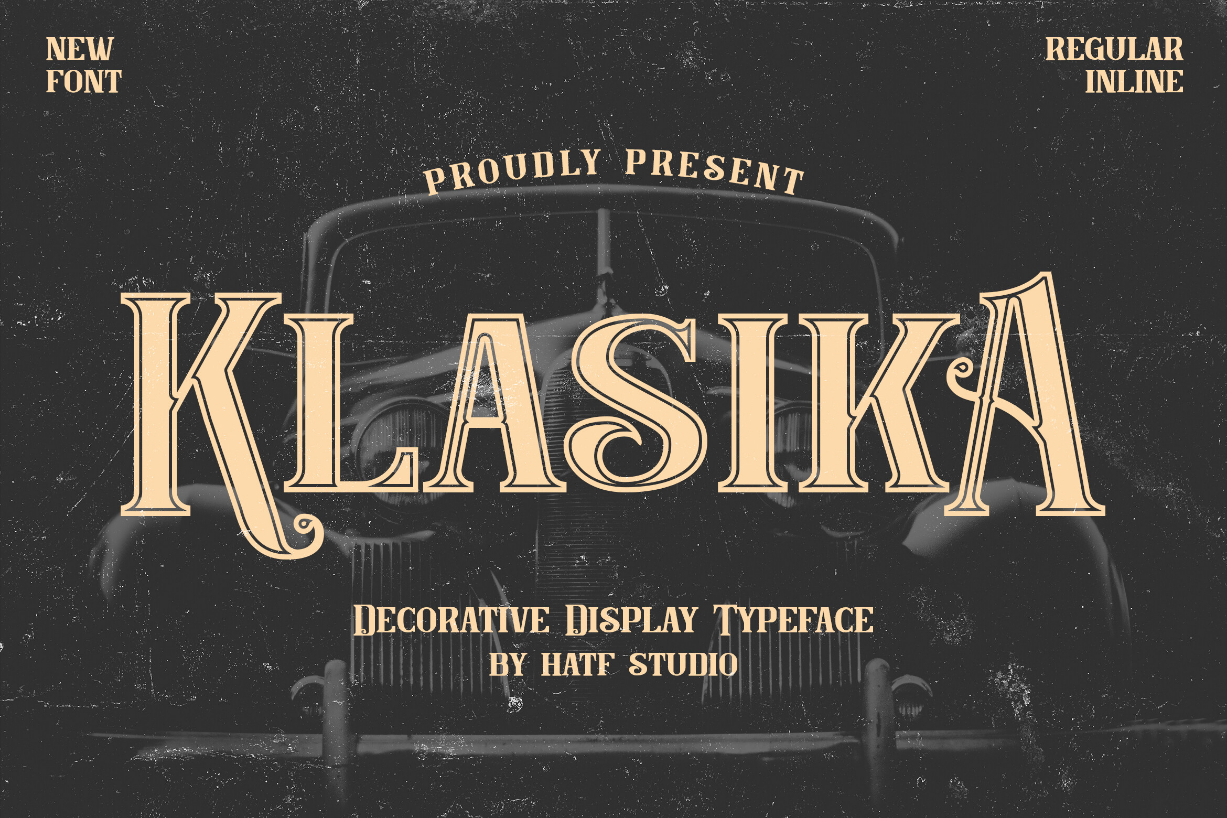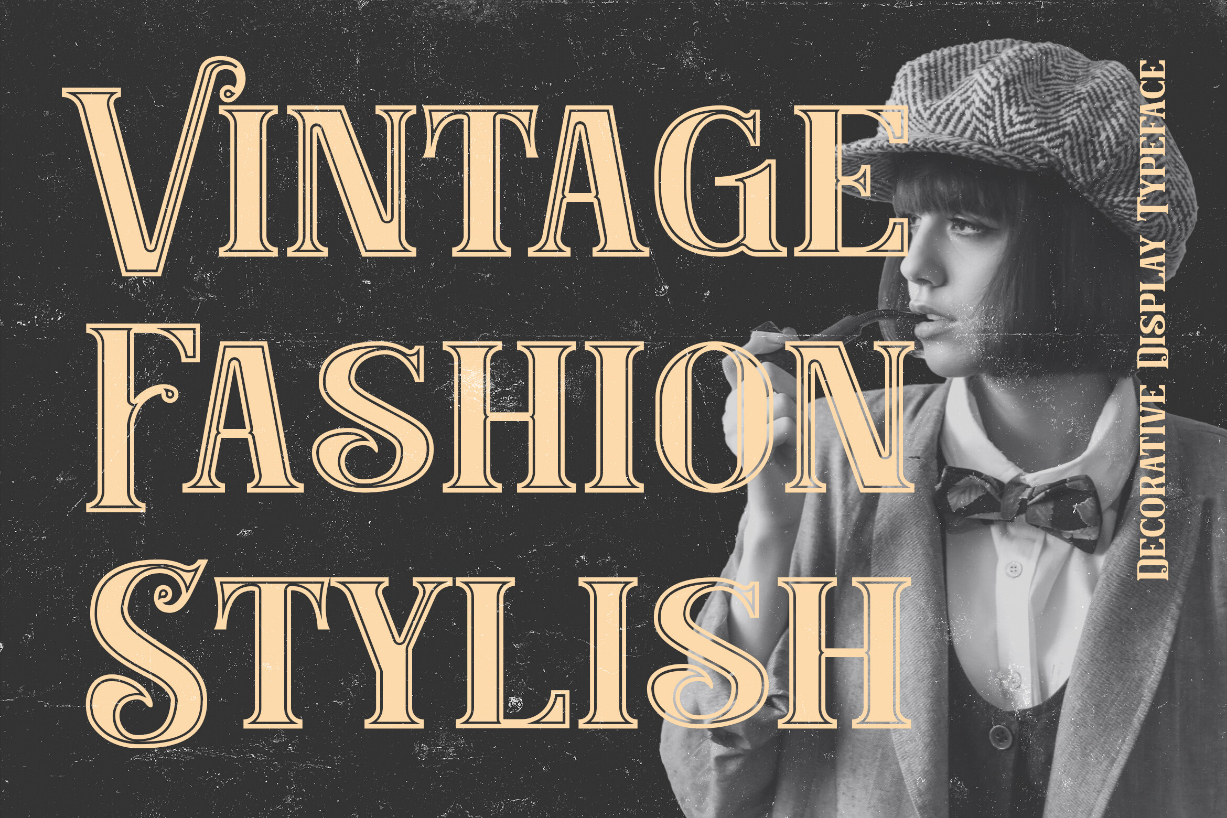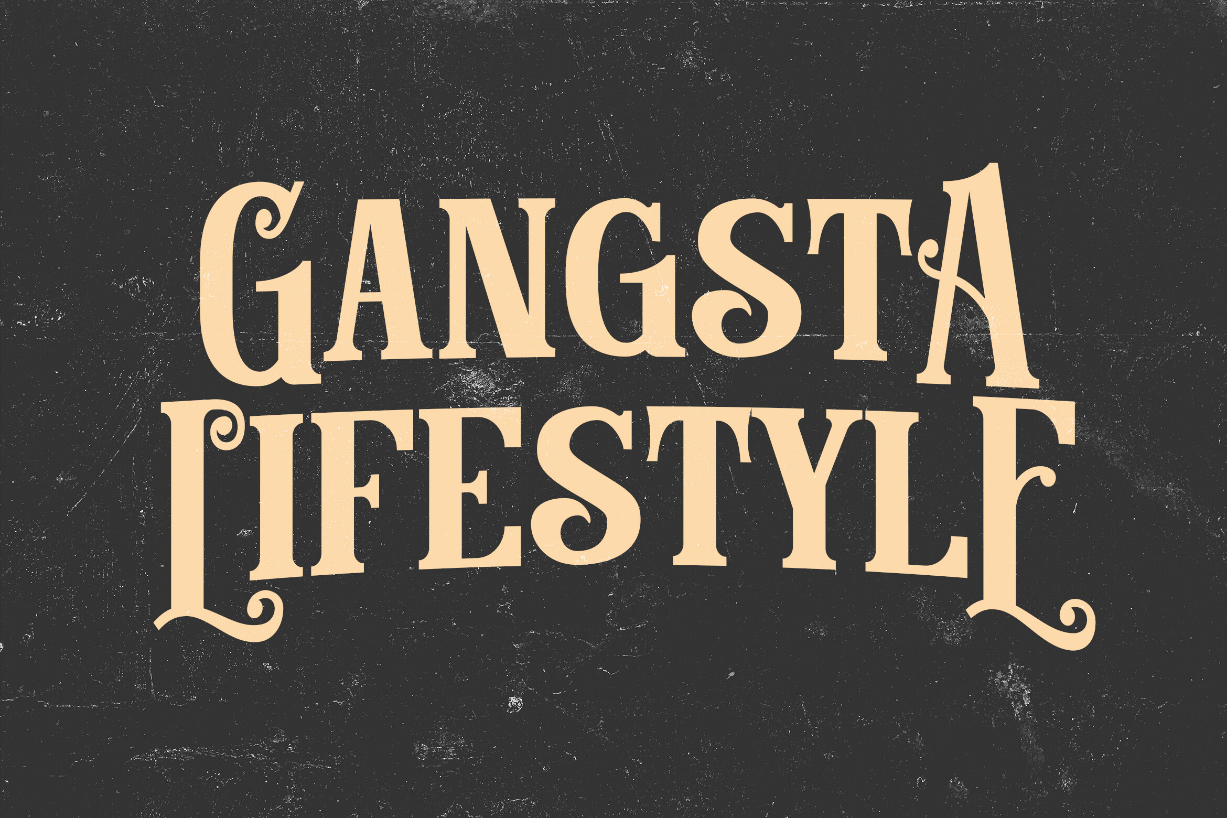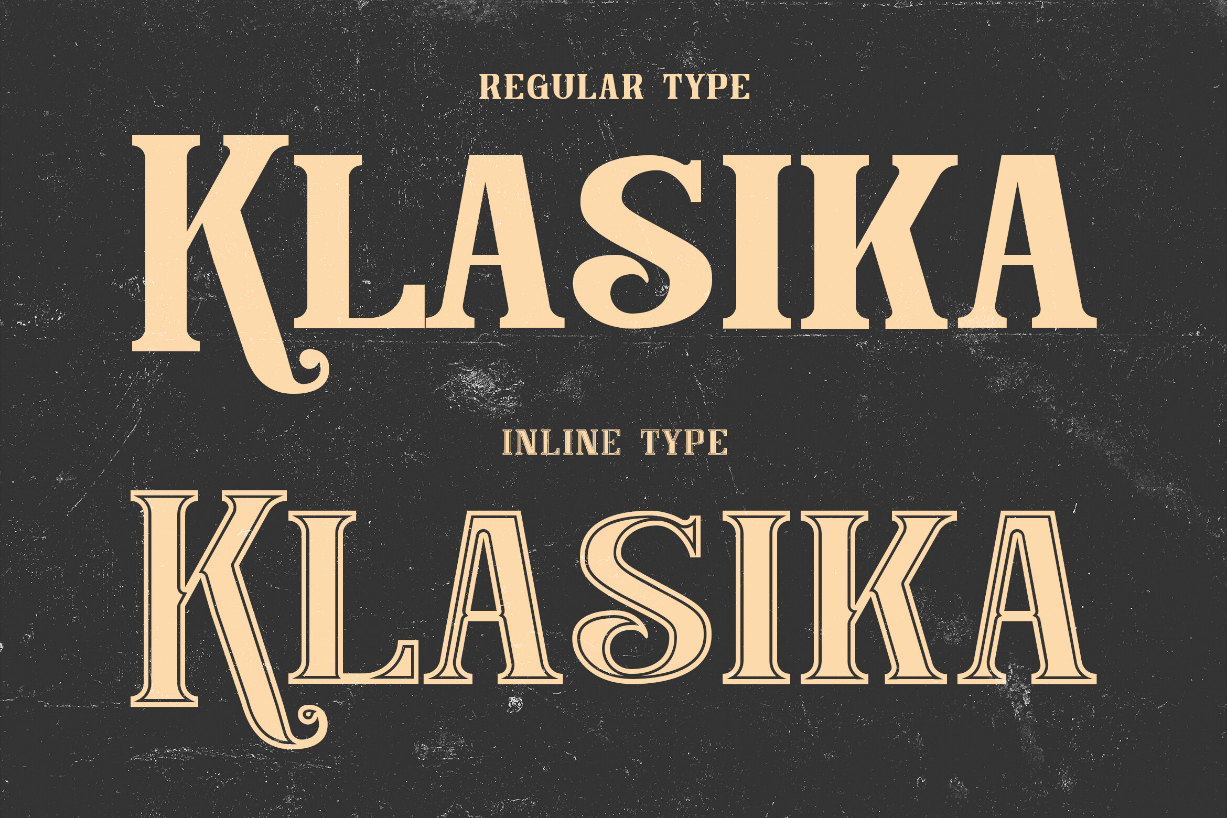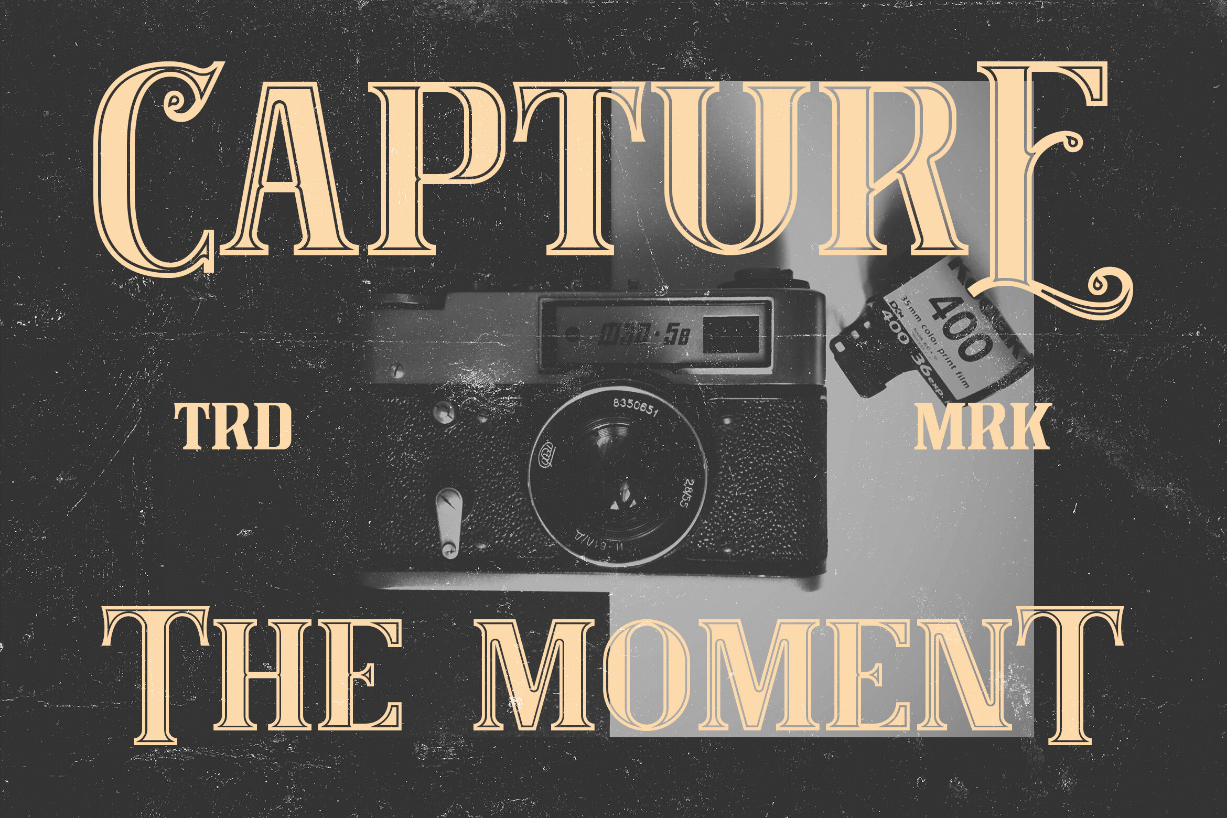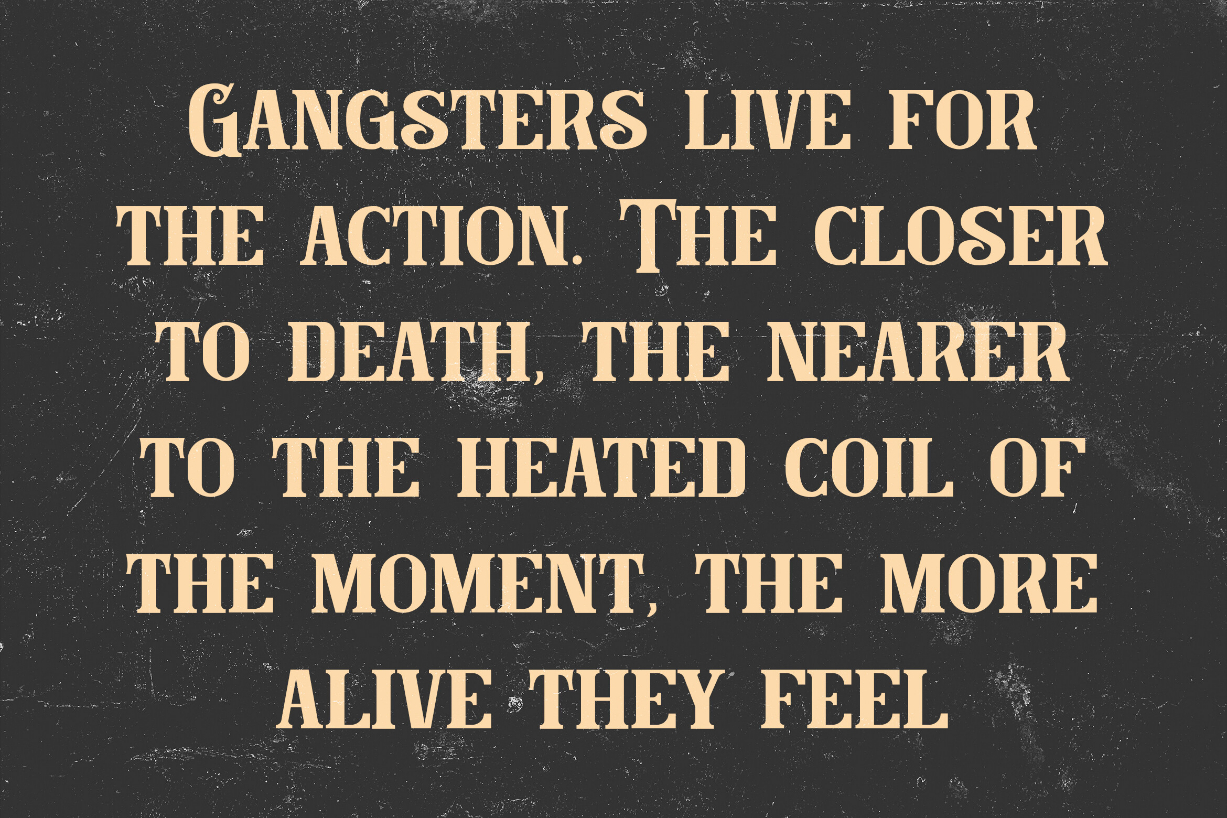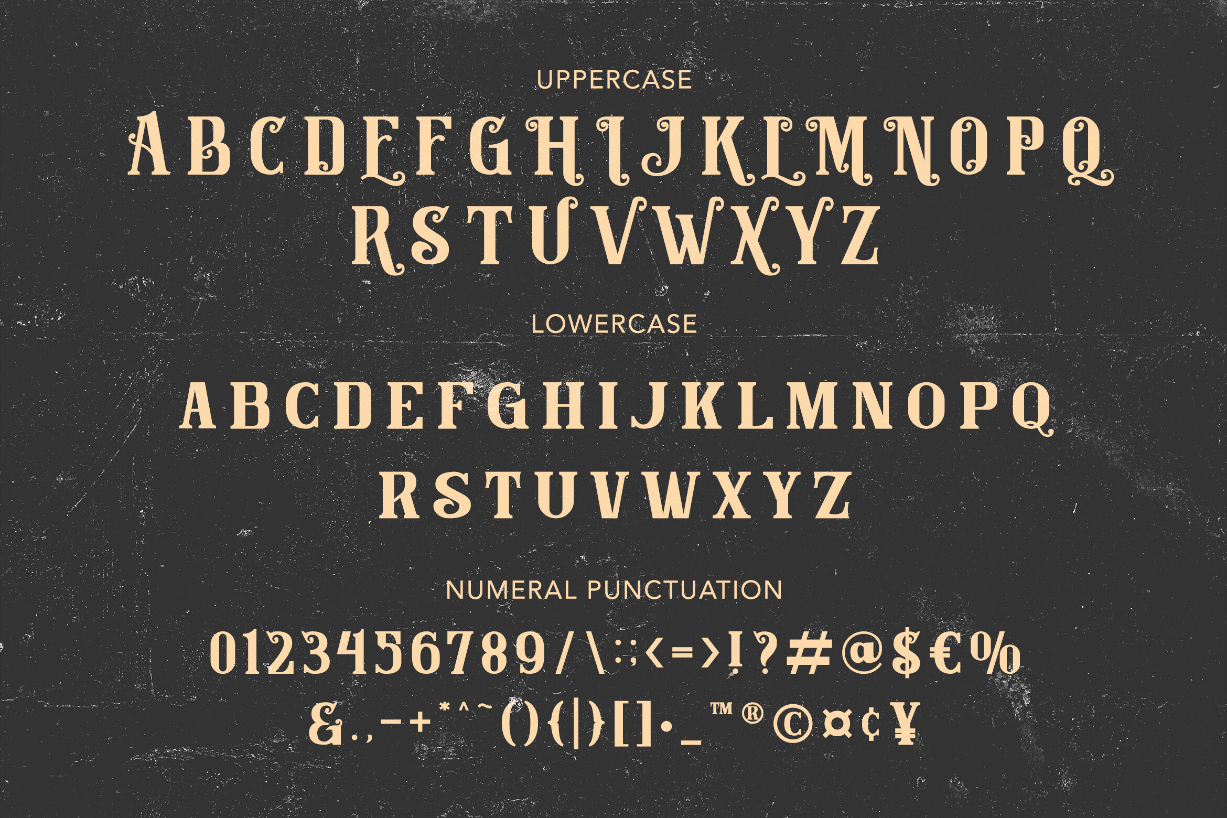
Klasika Font
About Klasika Font
Klasika is a bold and thick lettered blackletter font. Add it confidently to your projects, and you will love the results.